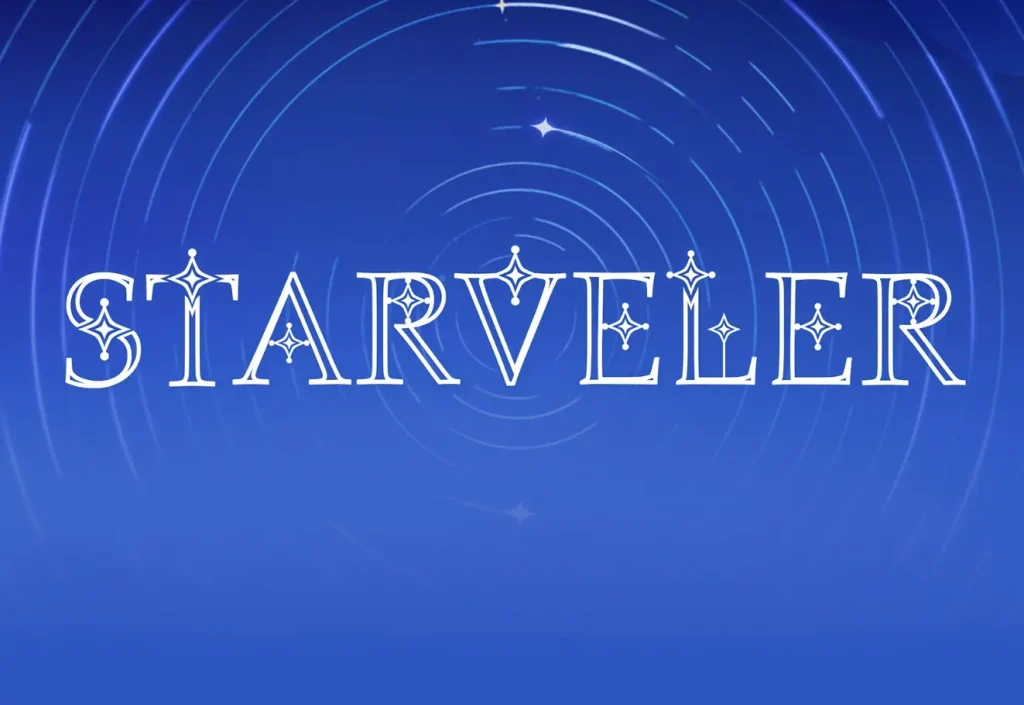
Starveler is a free typeface that builds upon the classic structure of Palatino Linotype. The font is inspired by Lumine, a character from the game Genshin Impact, and incorporates celestial, starry details into its letterforms.
Features
- Based on the highly legible Palatino Linotype font structure.
- Features unique, four-pointed star details inspired by celestial motifs.
- Evokes a fantasy, ethereal, and adventurous feeling.
- Suitable for both display and text purposes.
Use Cases
- Branding: Create a memorable logo and brand identity for a fantasy-themed business, such as a bookstore, game store, or artisan shop.
- Web Design: Use for headlines and body text on a blog or website focused on gaming, fantasy literature, or astrology.
- UI/UX Design: Apply to the user interface of a fantasy-inspired mobile game or application to enhance the user experience.
- Print Design: Design event posters, book covers, or invitations that require an elegant and mystical appearance.
- Social Media: Develop graphics for social media campaigns that need a touch of fantasy to capture audience attention.